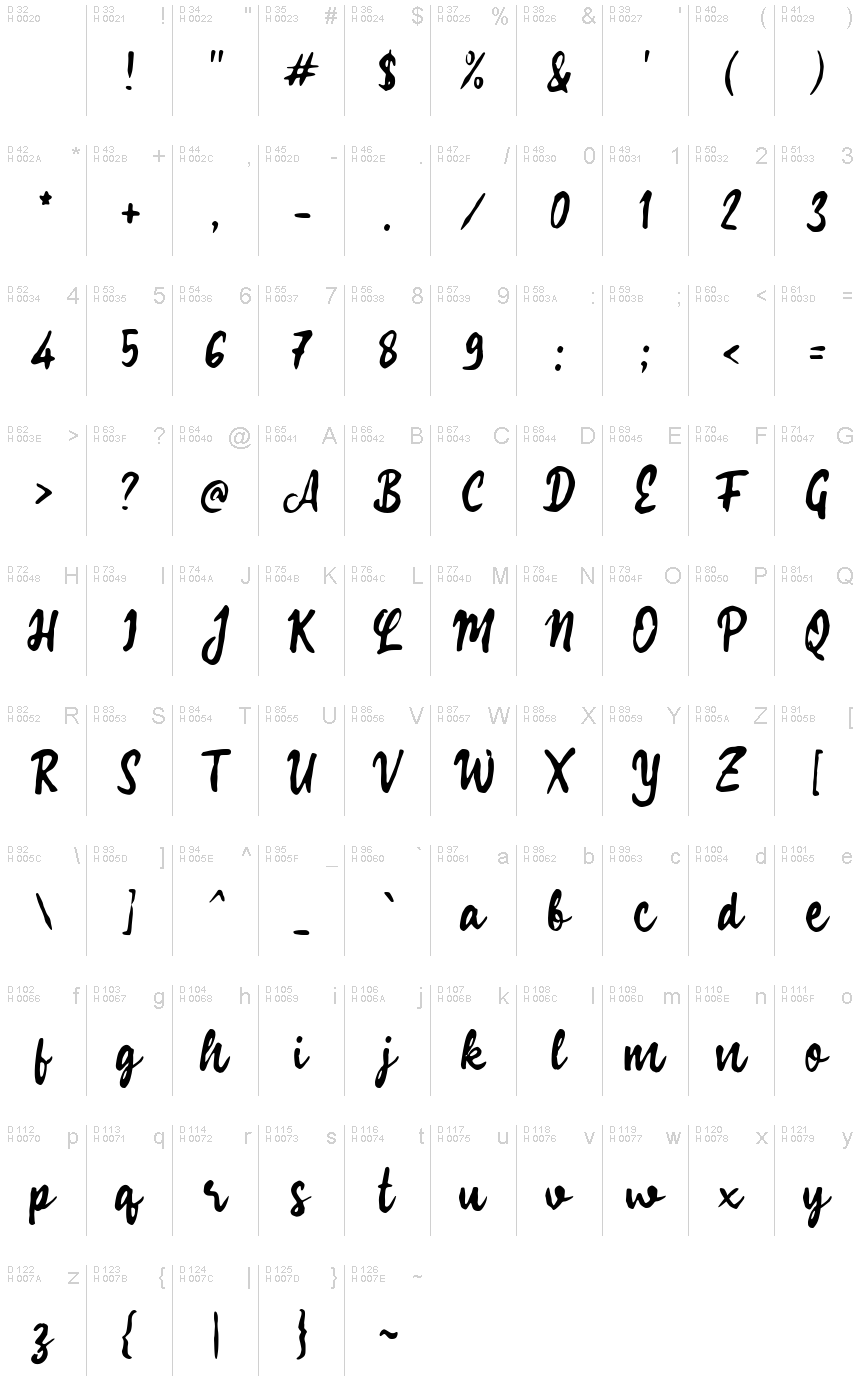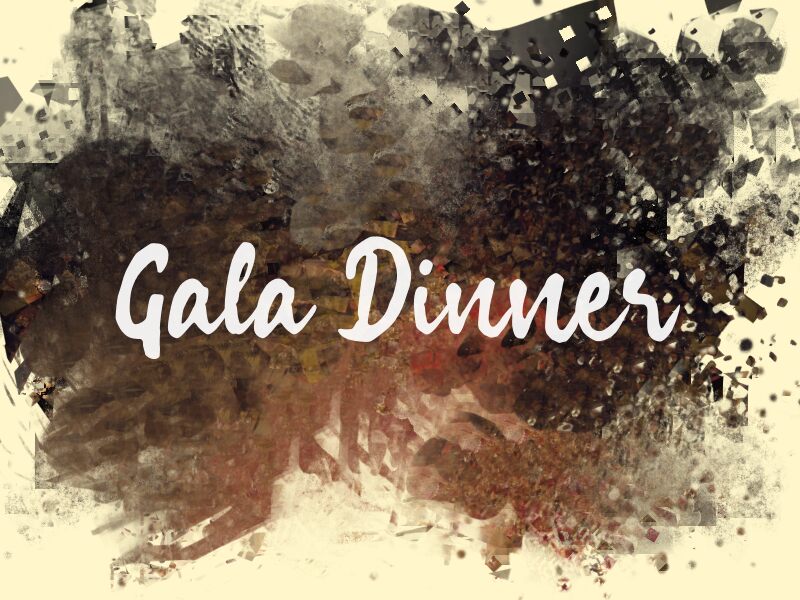
Gala Dinner
Gala Dinner font, designed by wep, captivates with its elegant handwritten style. This free font exudes a seamless blend of sophistication and playfulness, making it an ideal choice for creative projects. Its smooth, flowing curves bring a touch of grace and personal flair to any design.
Perfect for invitations, branding, and social media graphics, Gala Dinner's unique charm adds an inviting warmth to each character. Whether you're crafting wedding invitations or creating eye-catching headers, this font ensures your message stands out with style.